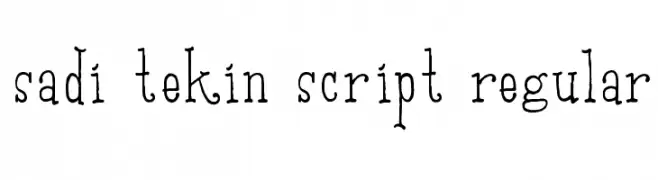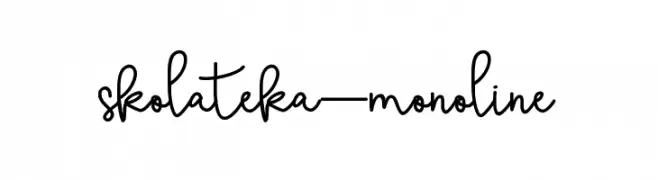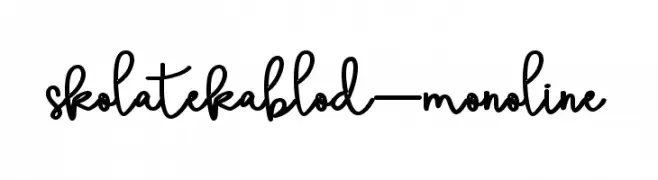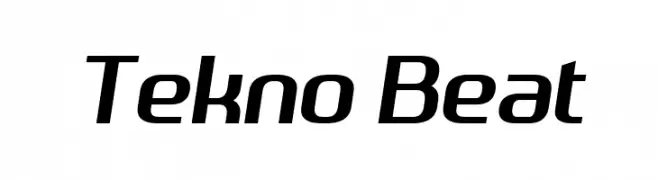
A playful monoline script font with smooth, continuous strokes and elegant curves.
A playful, handwritten font with thin, irregular strokes and a whimsical charm.
A bold, glitch-inspired font with a digital interference effect.
An elegant, flowing script font with graceful curves and loops.
A playful, handwritten font with tall, narrow letters and a casual style.
A playful, pirate-themed font with bold, whimsical characters.
A modern, geometric typeface with a tall, condensed structure and uniform stroke width.
A modern, geometric font with clean lines and a structured, professional appearance.